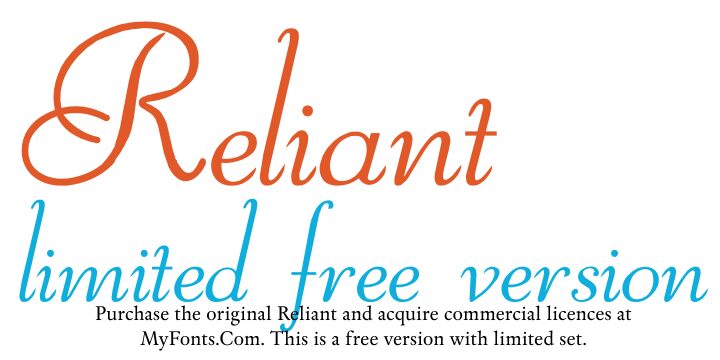
Reliant Limited Free Version by Intellecta Design is a non-commercial version containing a limited set extracted from the original font.
Reliant is a free interpretation of BernhardSchoenschrift, originally designed by Lucien Bernhard, and Liberty, designed by W.T. Sniffin for ATF in 1927, following Lucien Bernhard’s original designs.
This enhanced OpenType version includes complete Greek and Latin alphabets, with complete character sets for Central European, Vietnamese, Baltic, and Turkish usage, including all diacritic signs and punctuation marks, plus additional characters in those ranges.
The font also includes a Cyrillic alphabet. Dmitry Greshnev of Green Type helped correct the original Cyrillic alphabet for Cyrillic readers.
The font includes an extensive set of ligatures, including stylistic alternates, contextual alternates, and discretionary ligatures, as well as swashes, tail ornaments, additional fractions, and number ligatures. The additional fractions and number ligatures were an idea from Iza W.